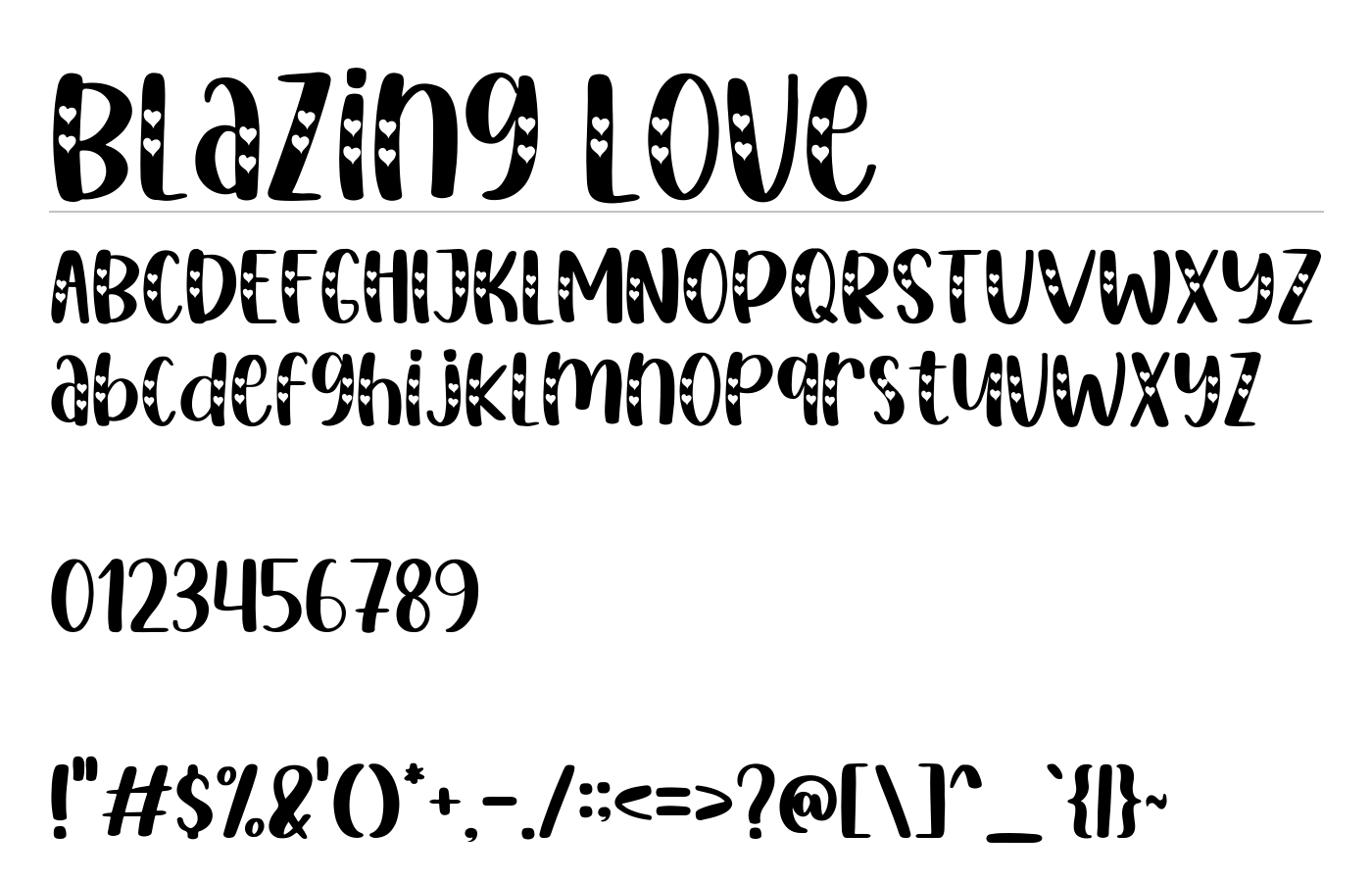
Blazing Love is a playful and whimsical sans serif font with bold, rounded letterforms featuring charming heart-shaped cutouts that add a lively, romantic touch. Its medium weight and tall x-height create a friendly and approachable feel, making it perfect for cheerful, love-themed designs such as greeting cards, party invitations, and fun branding projects. This font shines best in headlines or display uses where its unique, heart-accented style can capture attention and spread warmth.
Blazing Love Font
About Blazing Love Font